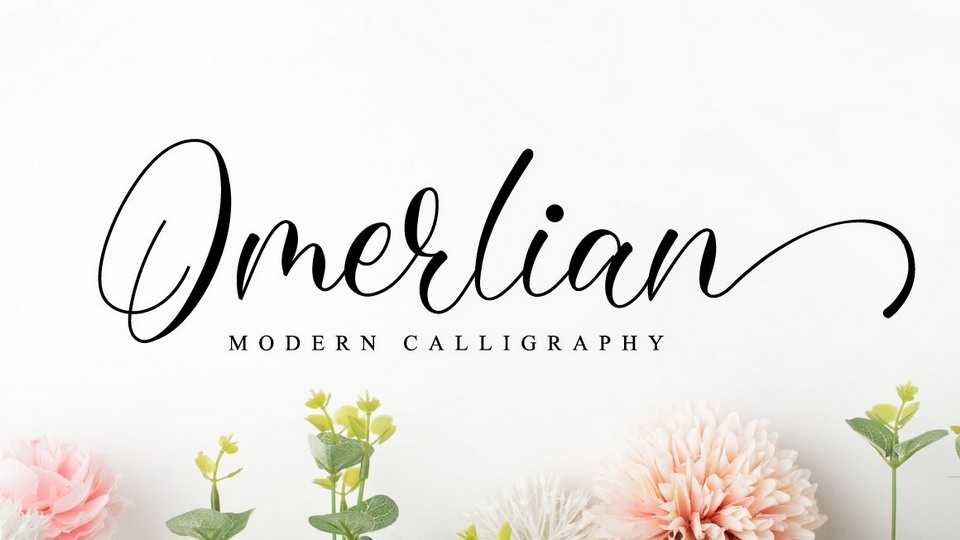
Download Omerlian font, a delicate, elegant and flowing handwritten typeface. Omerlian has beautiful and well balanced characters and as a result, it matches a wide range of designs.